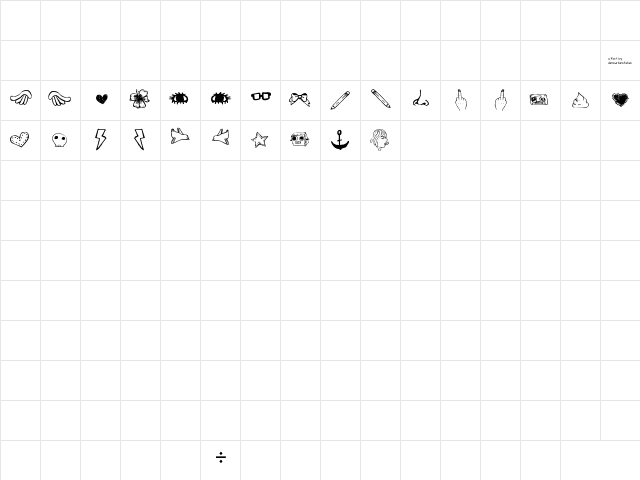
Denne | Pretty Shit Regular
Design Context for Denne | Pretty Shit Typeface
Denne | Pretty Shit is a composed and adaptable typeface that performs quietly and consistently across a wide range of design contexts.